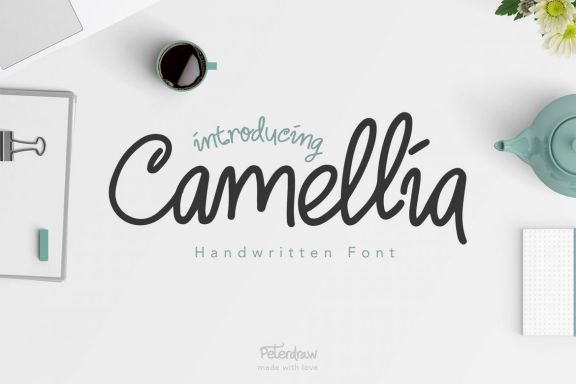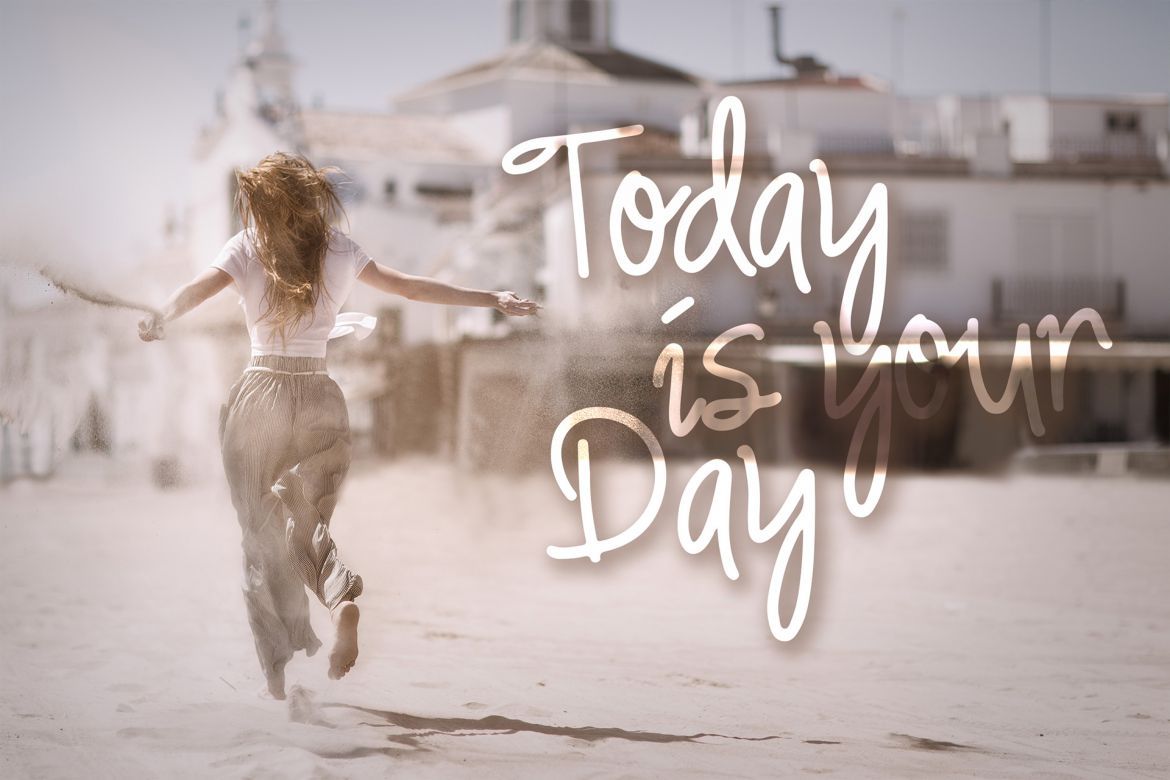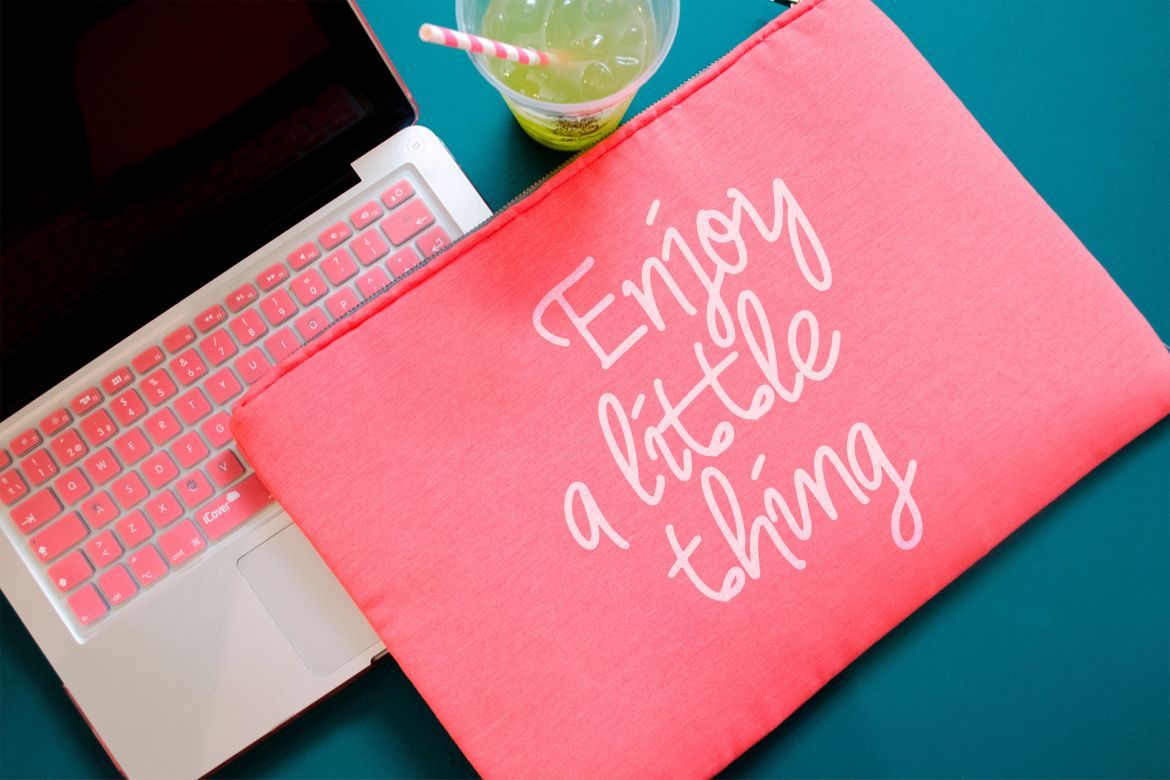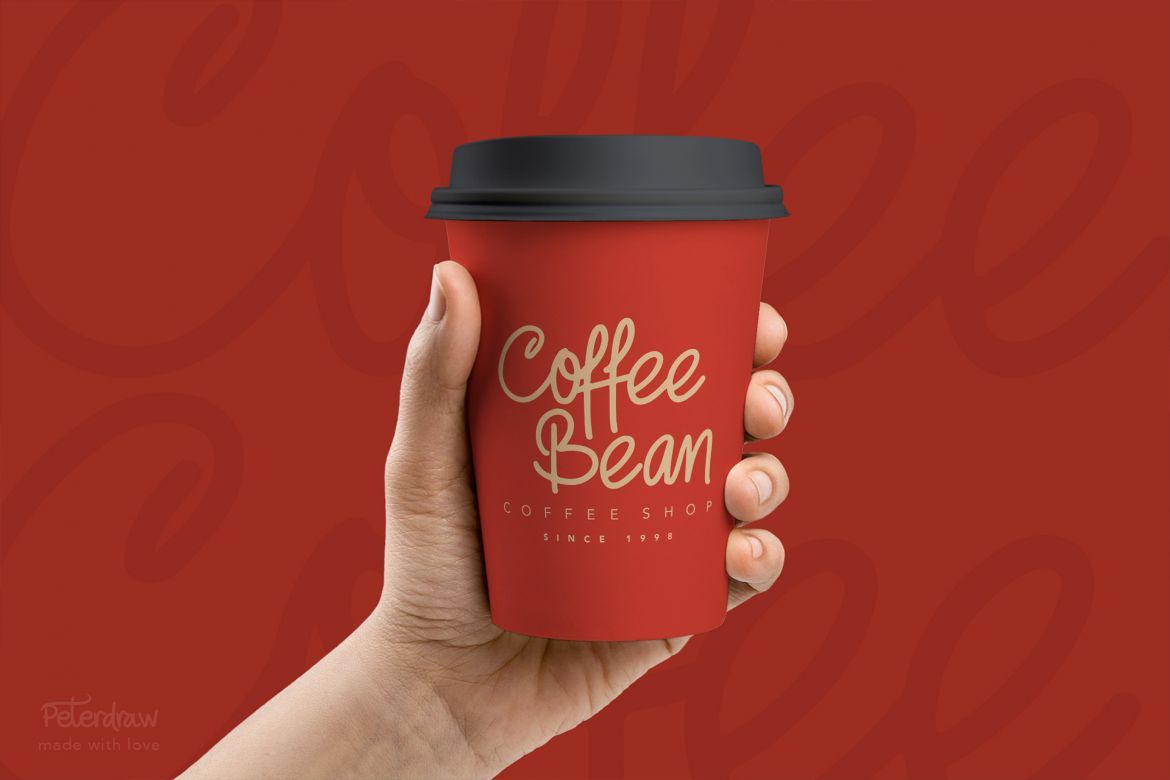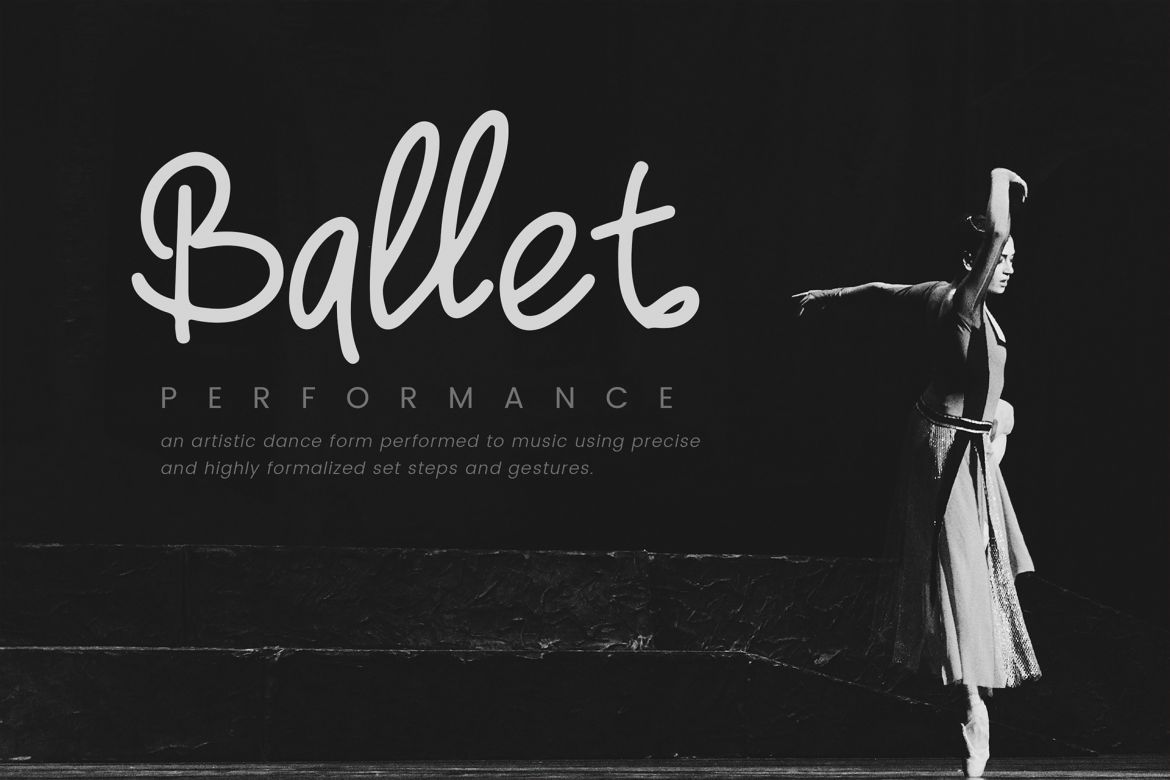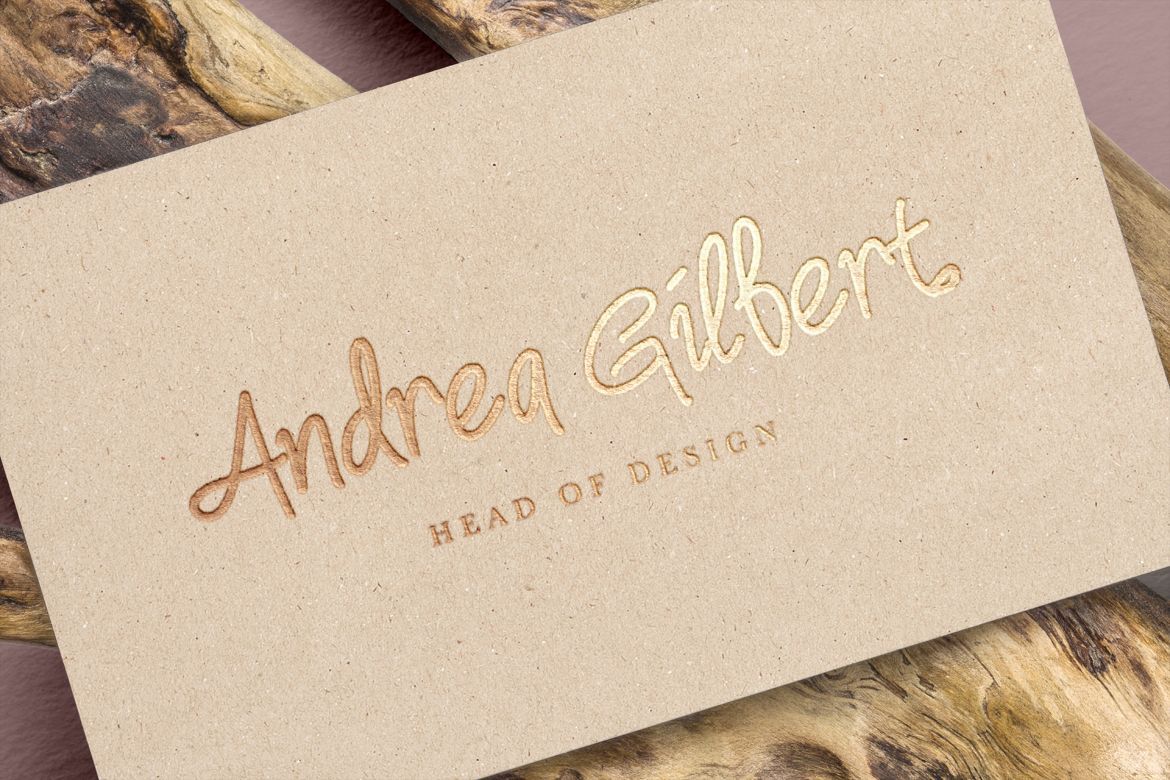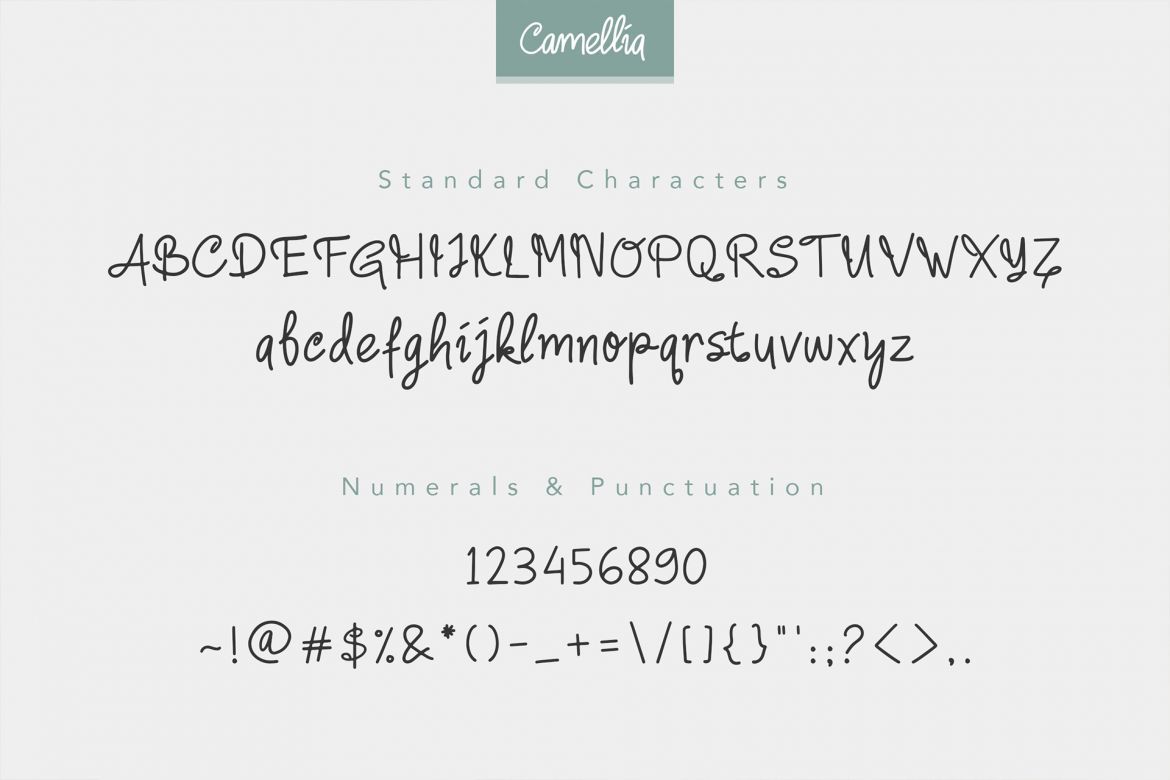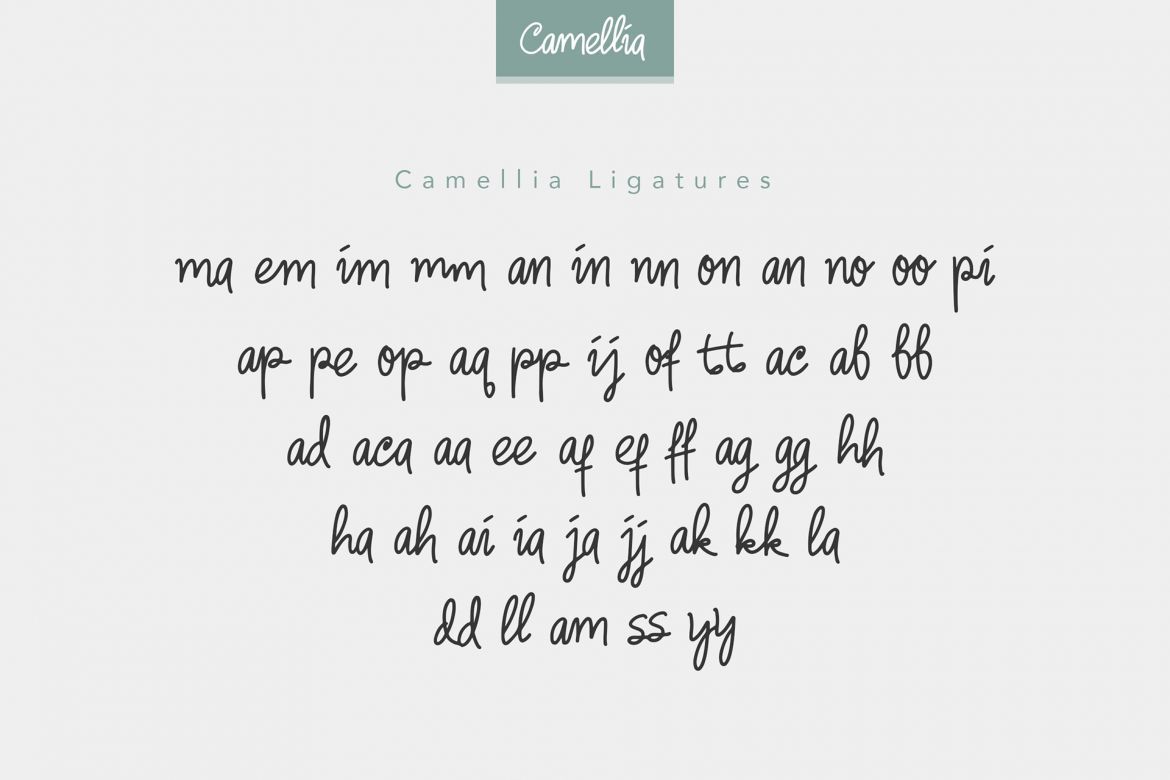
Camellia Handwritten Font
A handwritten font with fun and elegant feels. Camellia is perfect for branding projects, product packaging – or a stylish text overlay to any background image.
• 40+ handwriting ligatures
• numbering and punctuation
• uppercase & lowercase letters